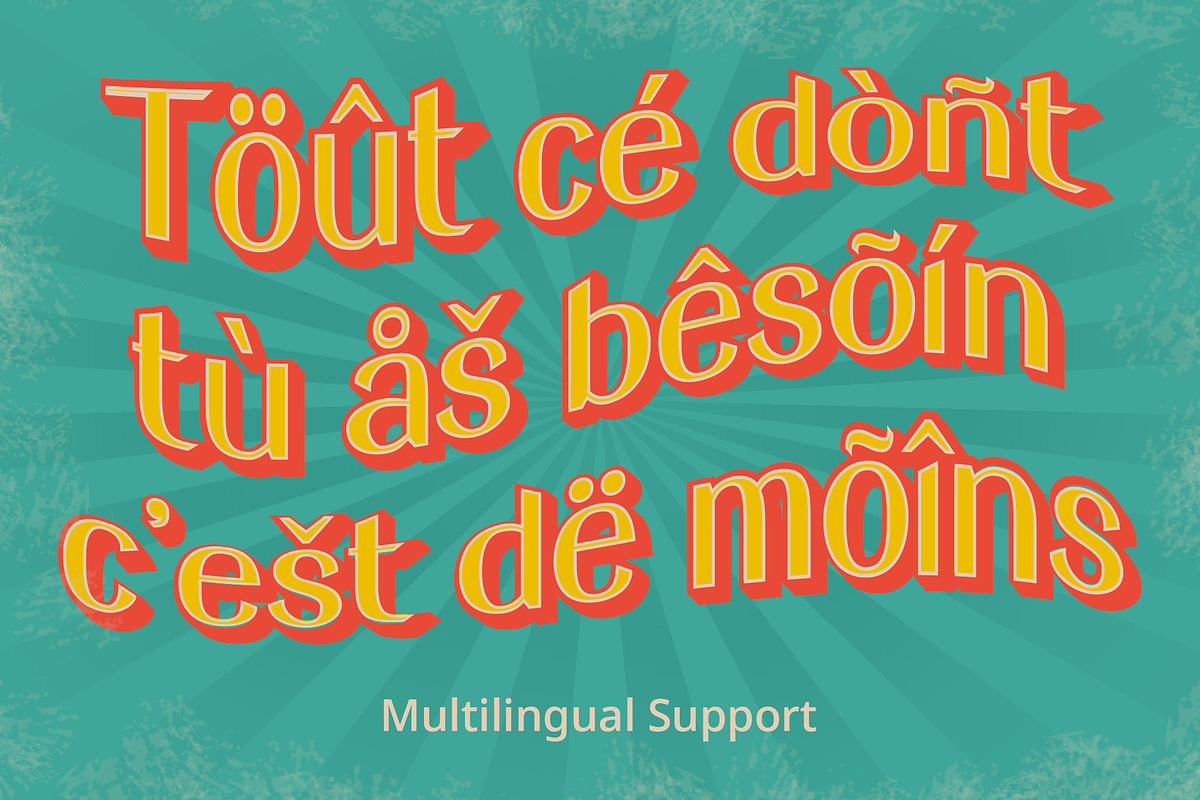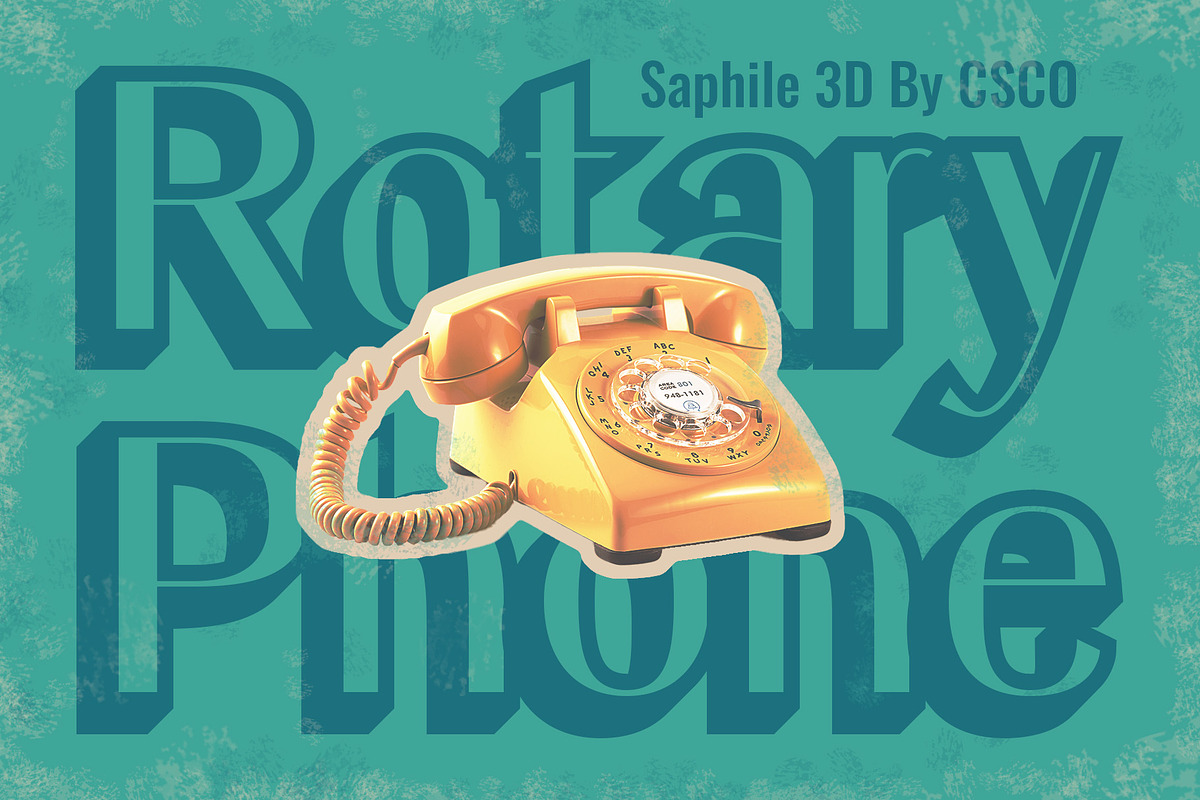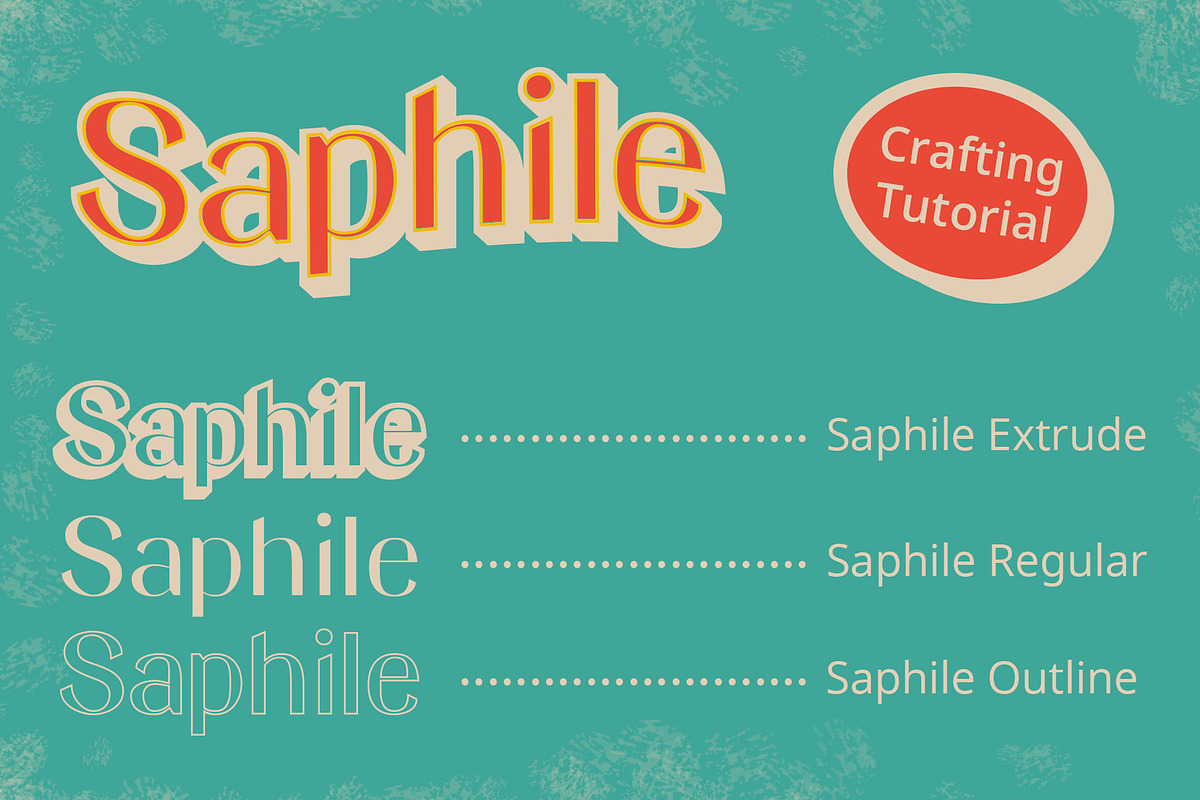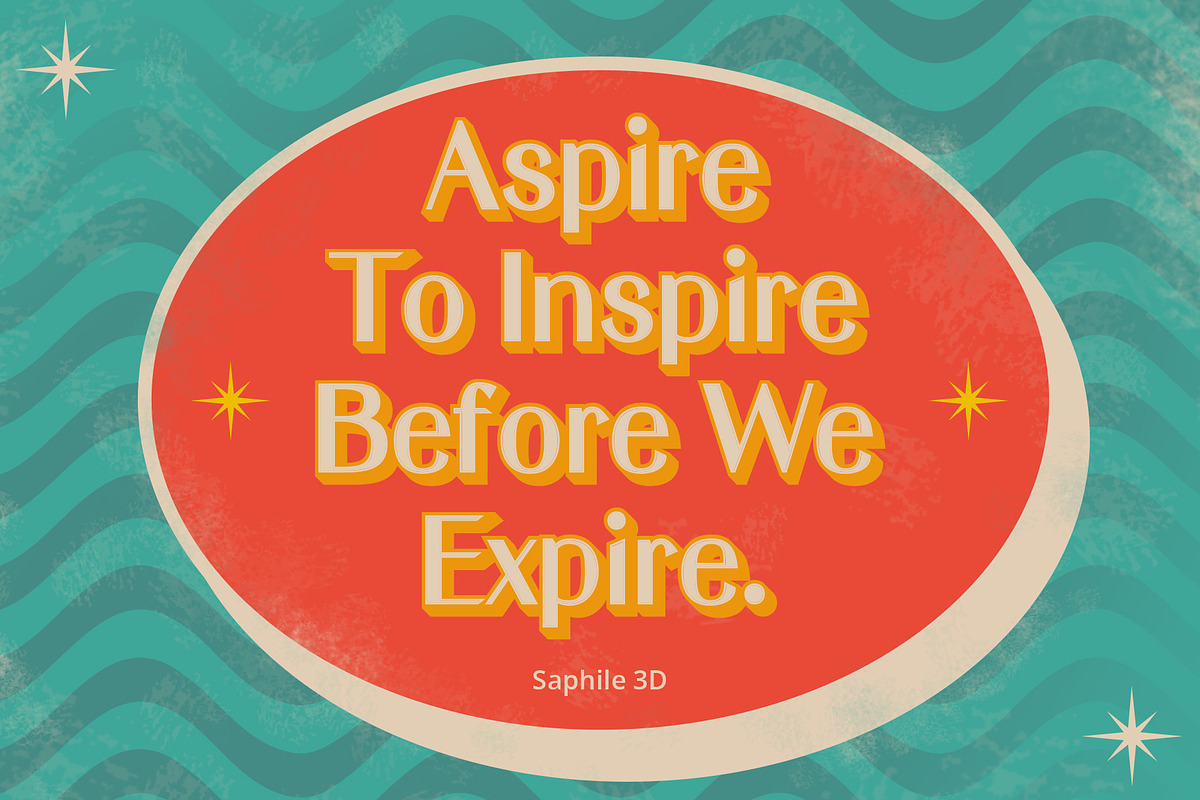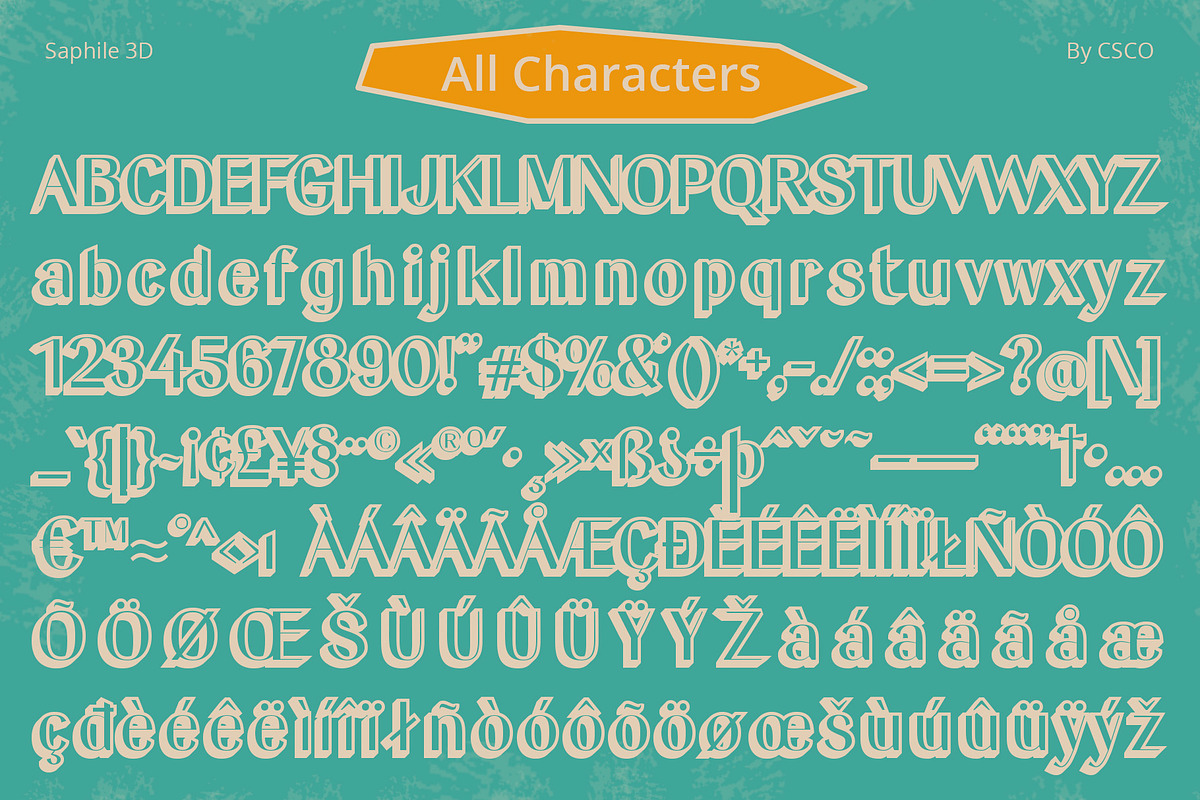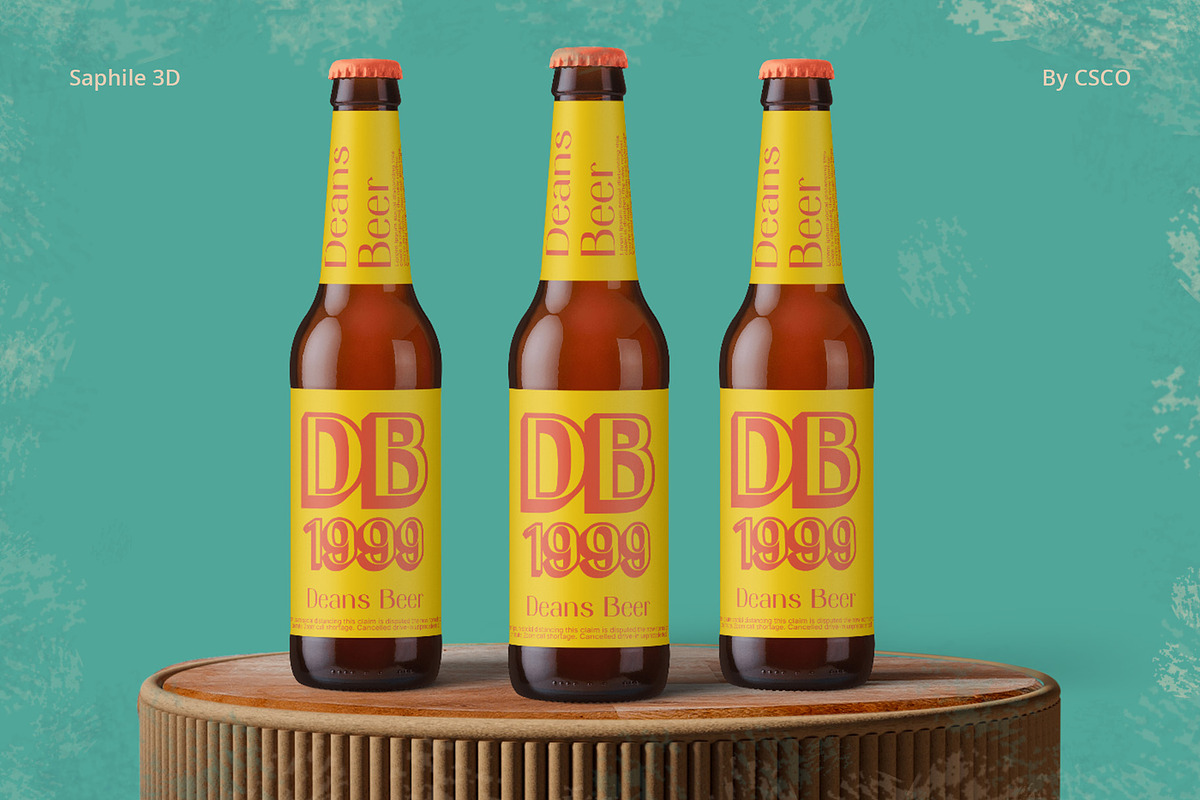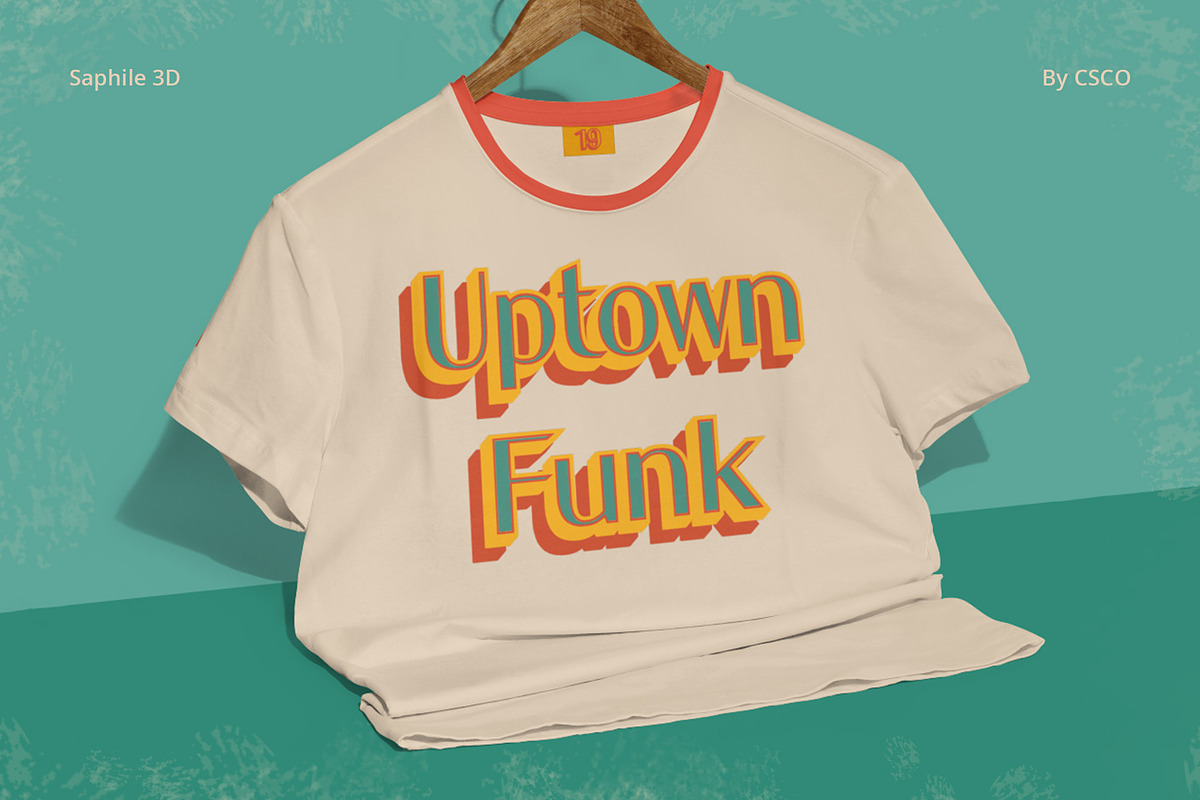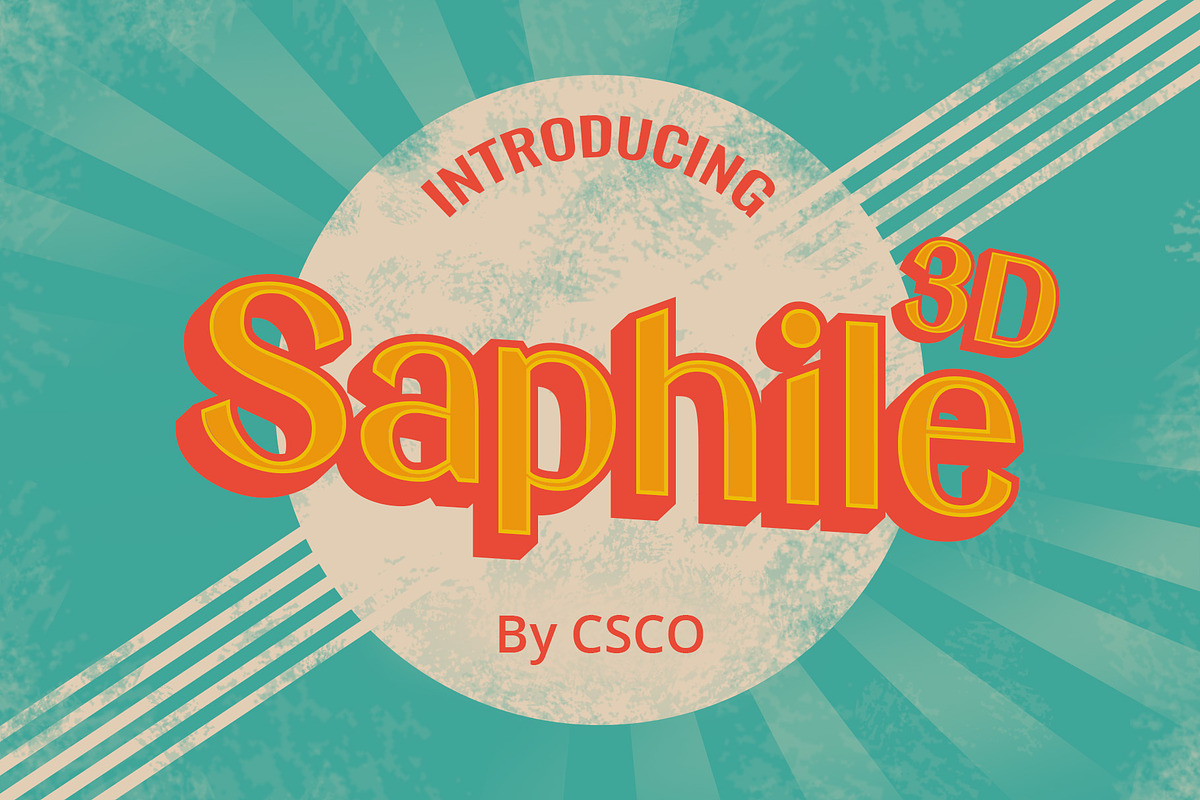
Saphile 3D
Saphile 3D Font: A Retro Revival with a Contemporary Twist
Nostalgic Vibes, Modern Appeal Step back into the vibrant era of the ’90s with Saphile 3D, a sans-serif display font that effortlessly blends retro nostalgia with a contemporary touch.
Dimensional Illusion Saphile 3D isn’t your typical retro font. With a unique blend of extrude and outline effects, each character takes on a lifelike, three-dimensional appearance, adding a modern edge to its nostalgic roots.
Bold and Playful Typography Immerse your designs in bold, playful typography that captures the essence of the ’90s. Saphile 3D’s dynamic visual presence makes it an ideal choice for eye-catching titles and attention-grabbing displays.
Versatility Across Designs While rooted in the ’90s aesthetic, Saphile 3D adapts effortlessly to diverse design needs. From posters to web graphics, it injects a dose of retro charm without compromising on modern readability.
Conclusion Saphile 3D is more than a font; it’s a bridge between eras. Whether you’re creating throwback designs or infusing a touch of nostalgia into contemporary projects, this font seamlessly blends the best of both worlds.
- Saphile Regular
- Saphile Outline
- Saphile Extrude Right
- Saphile Extrude Left